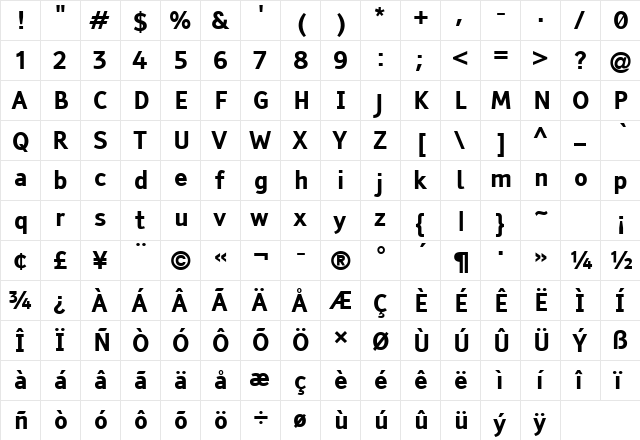
Tiresias Signfont Z Regular
Design Context for Tiresias Signfont Z Typeface
Tiresias Signfont Z takes a measured approach to typography — its balanced proportions and neutral character make it a reliable workhorse for both digital and print work.